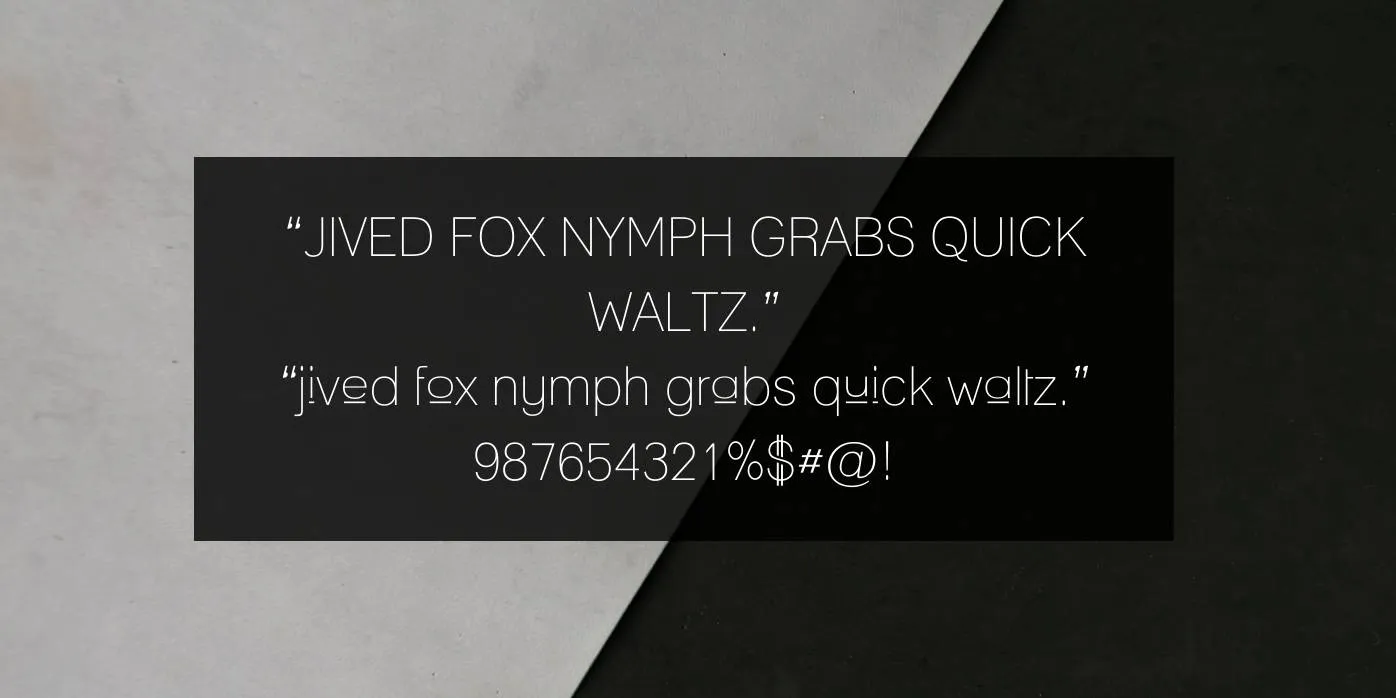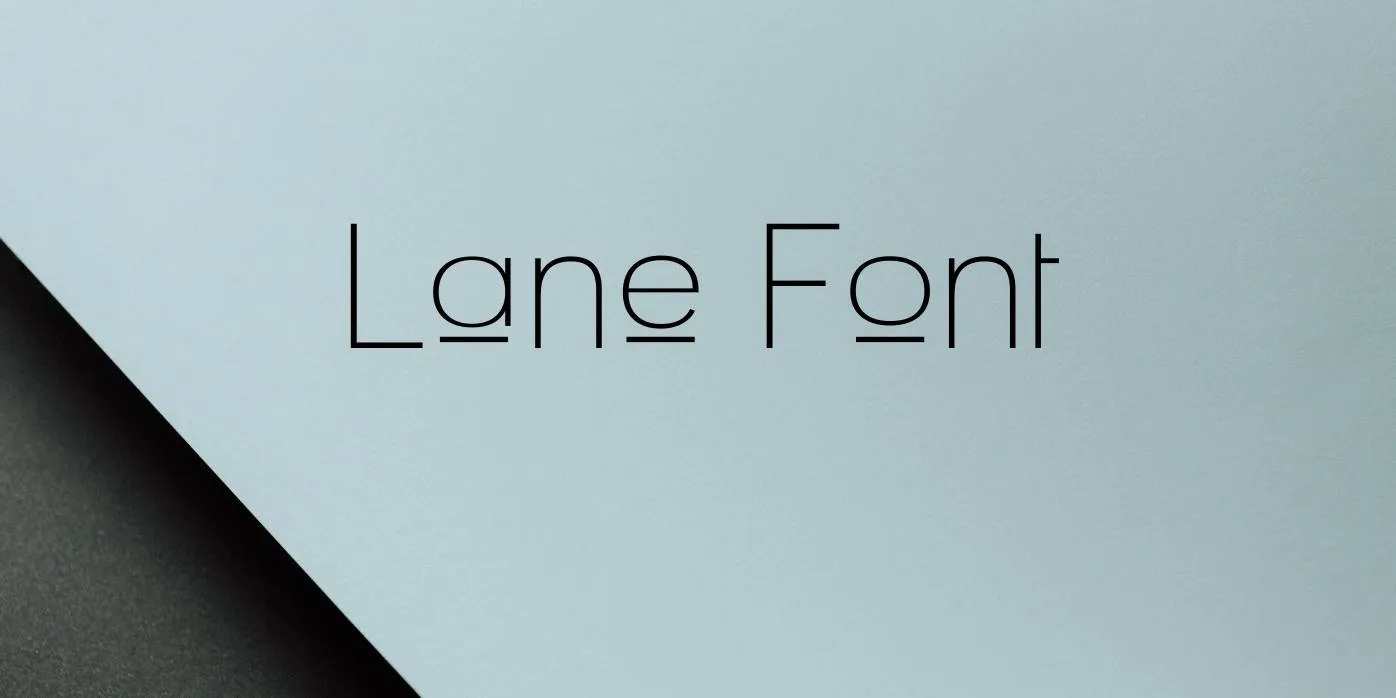
Lane Font
In this article, we introduce Lane Font which belongs to the basic sans serif font family. This staggering typeface was developed and published by Typotheticals. The aim of the designer is to create a classic and modern font that will be perfect for various design projects. This tremendous font consists of three advanced different styles regular, bold, and black.
Each style has its own unique features that can make it ready to create a variety of different designs. The regular style is the most versatile and can be used for a wide range of purposes. Another similar font which is sofia pro font is perfect for different designs. While the black style is great for adding a touch of elegance to your designs.
The bold style is suitable for making a statement. One modern feature is its online generator tool which is very useful for a variety of colorful graphic designs.